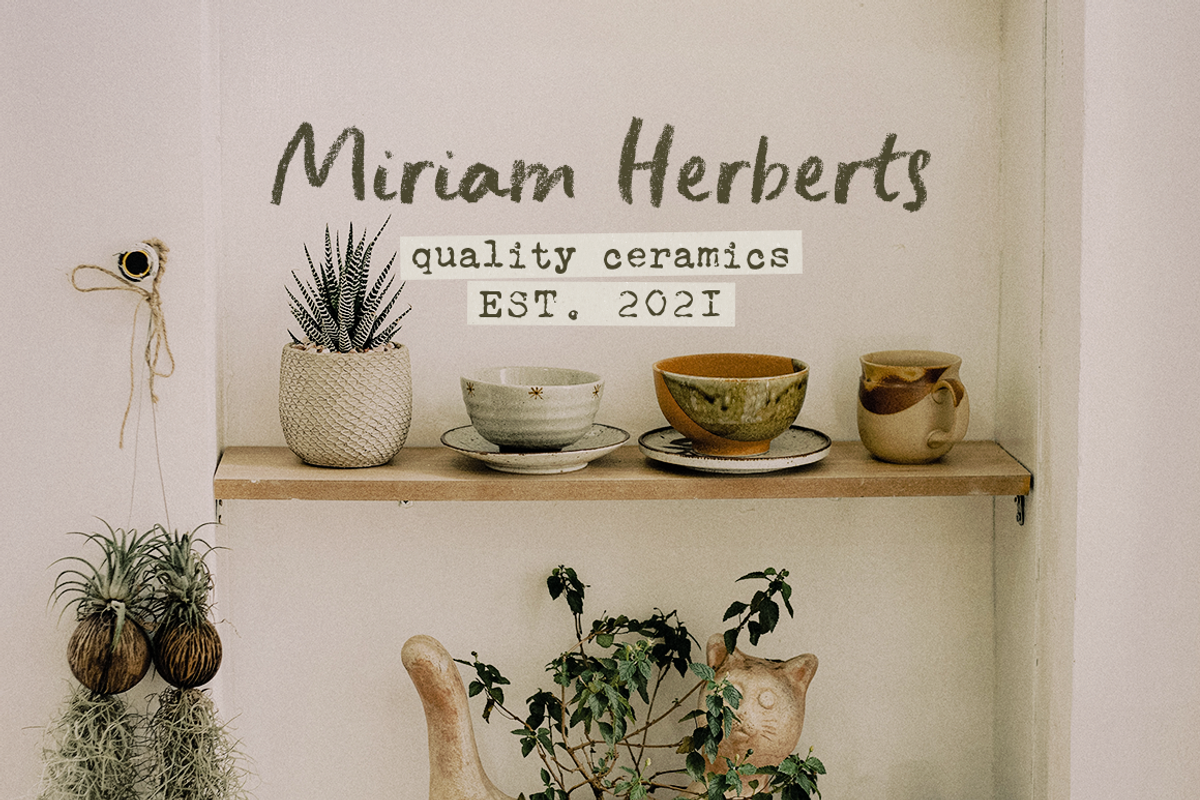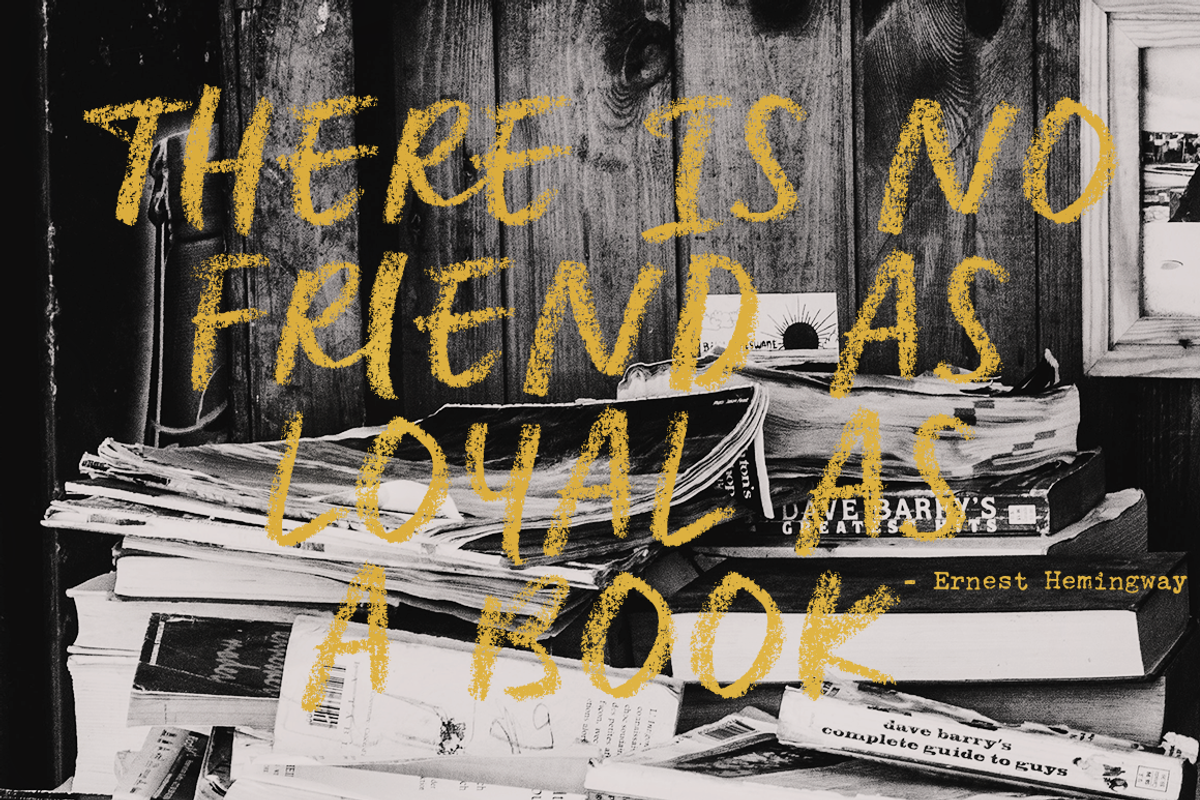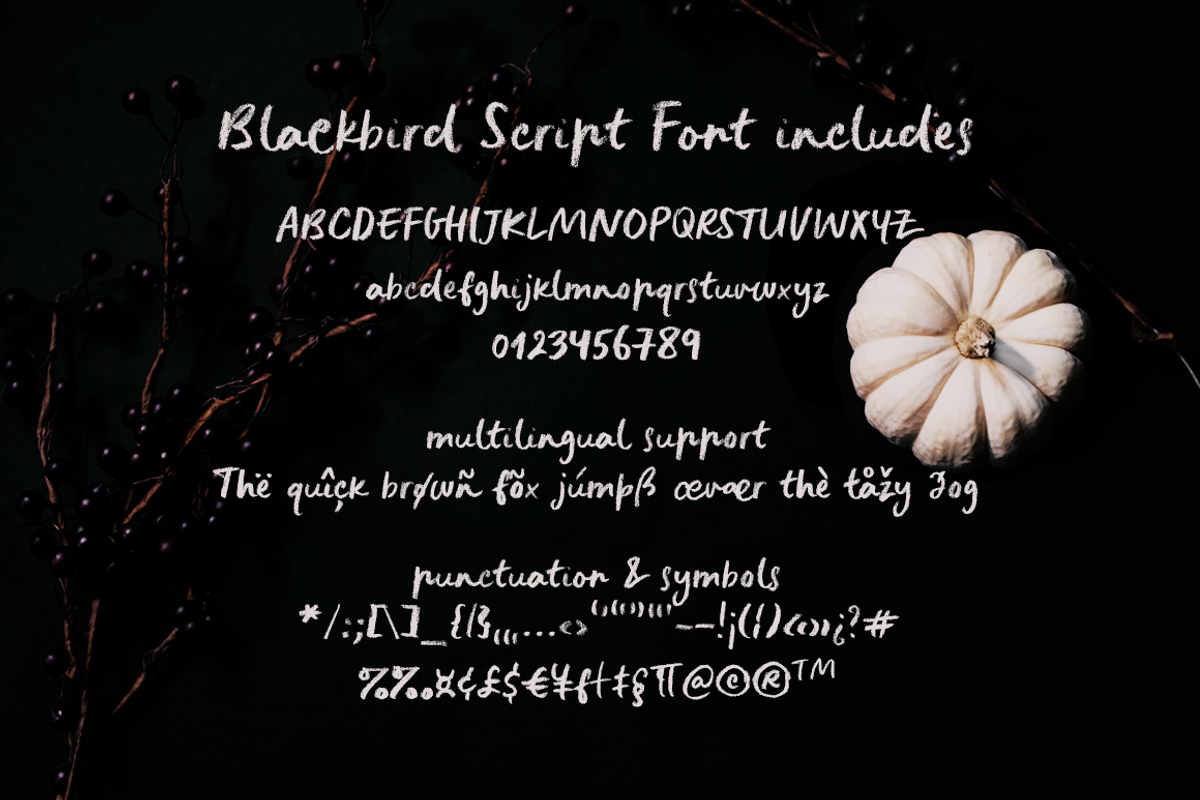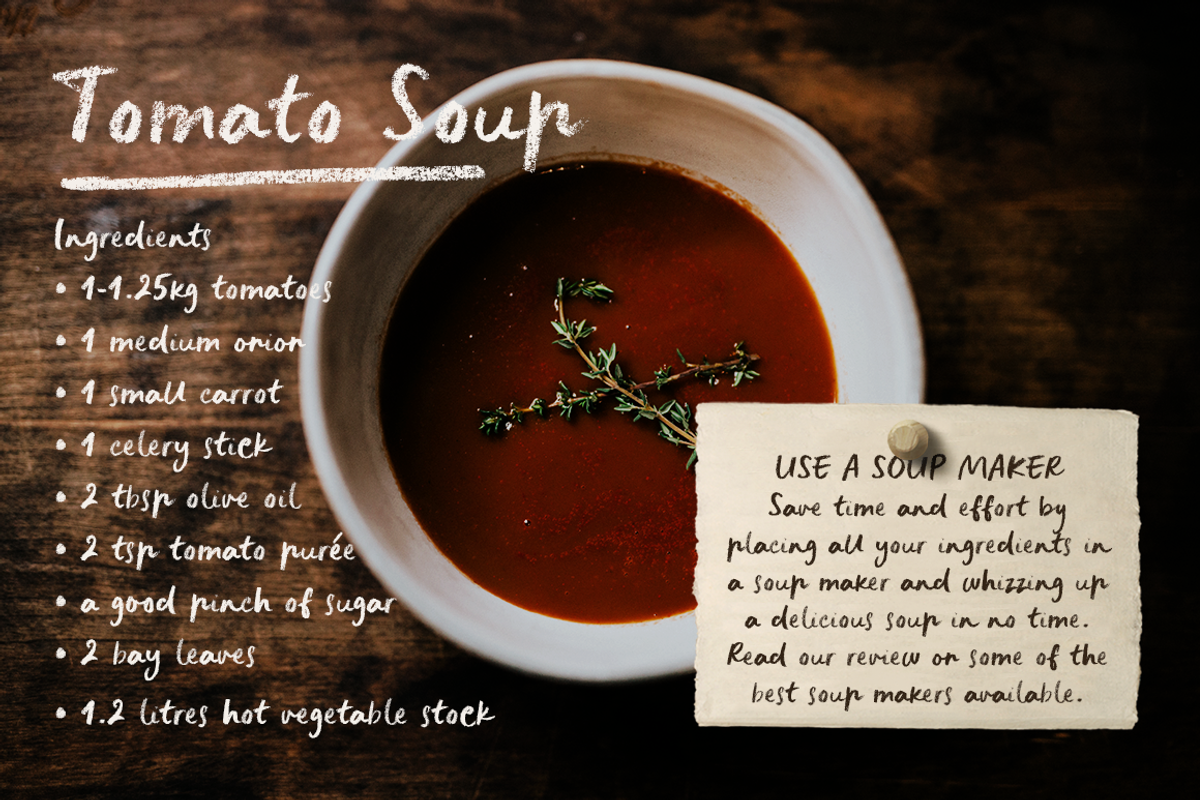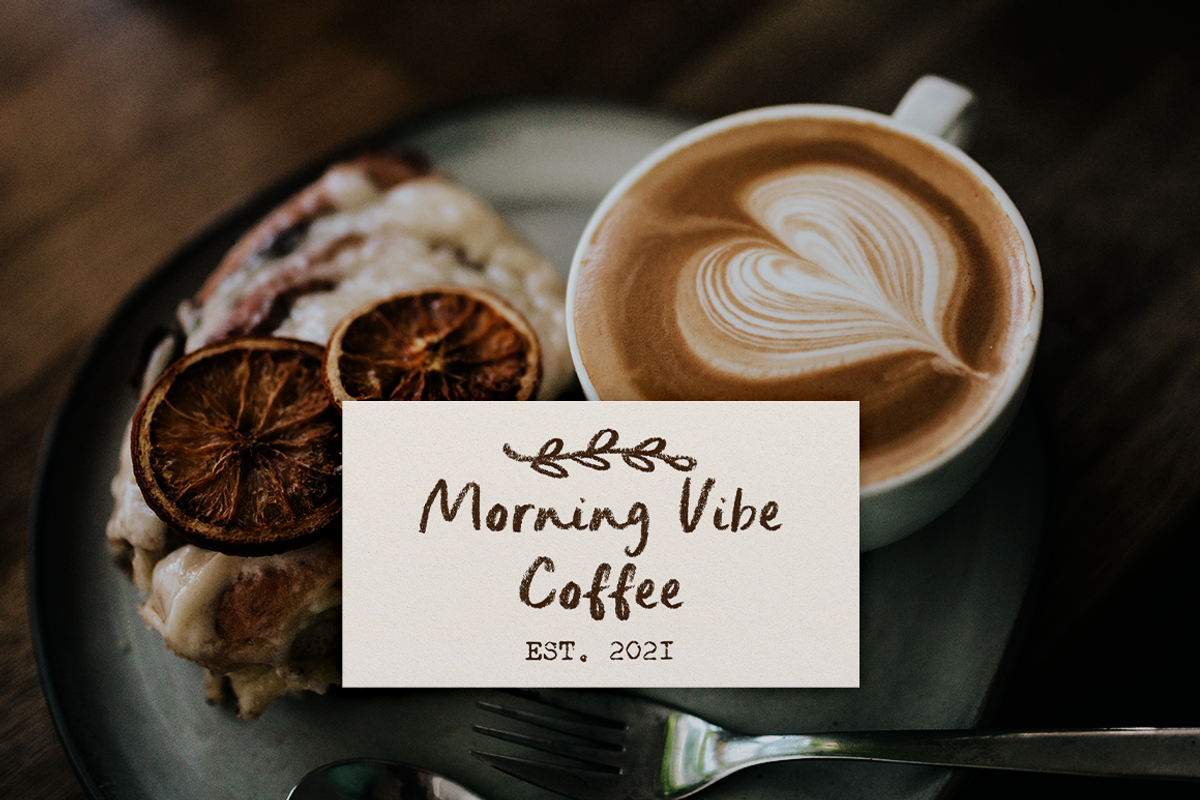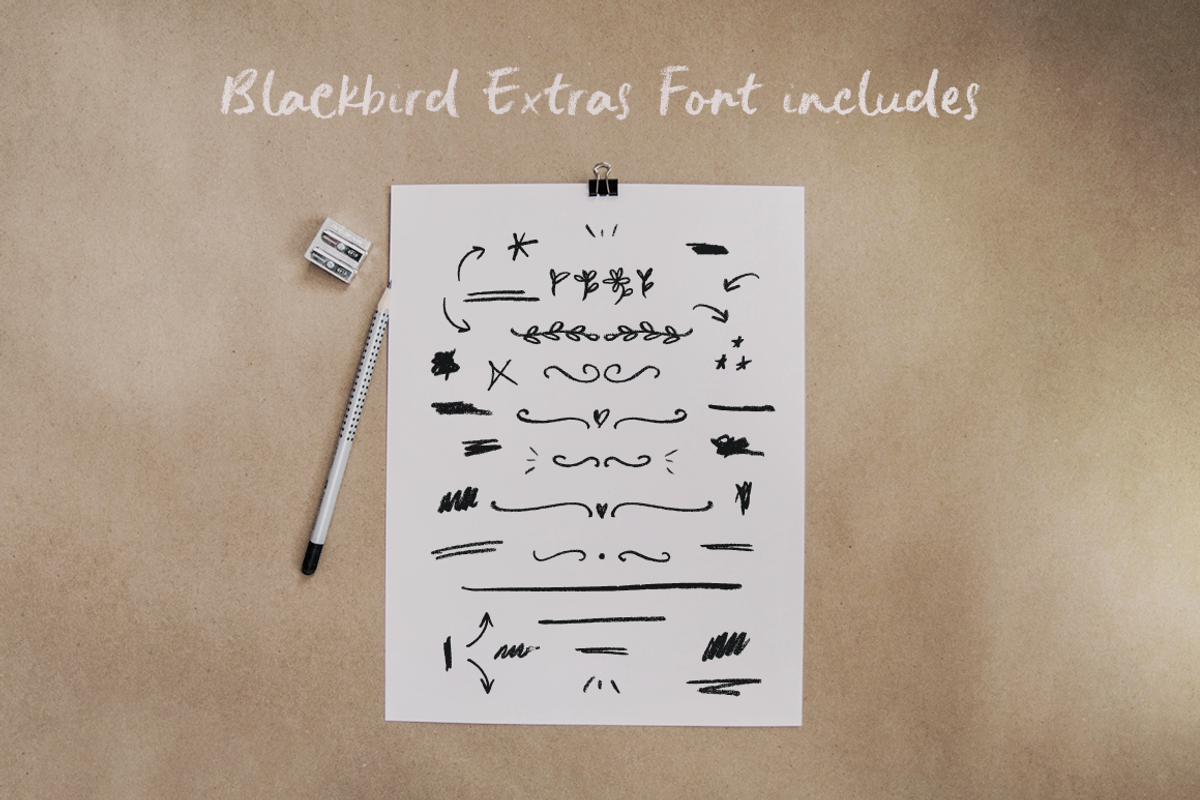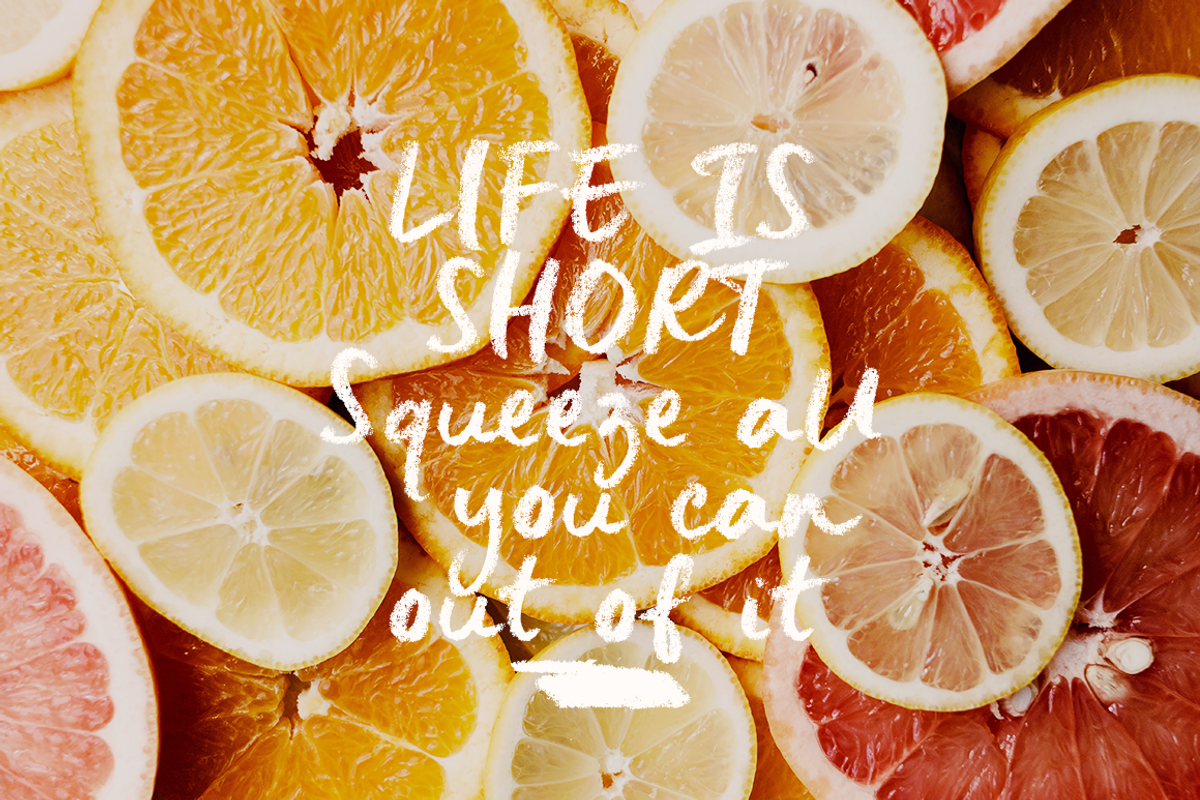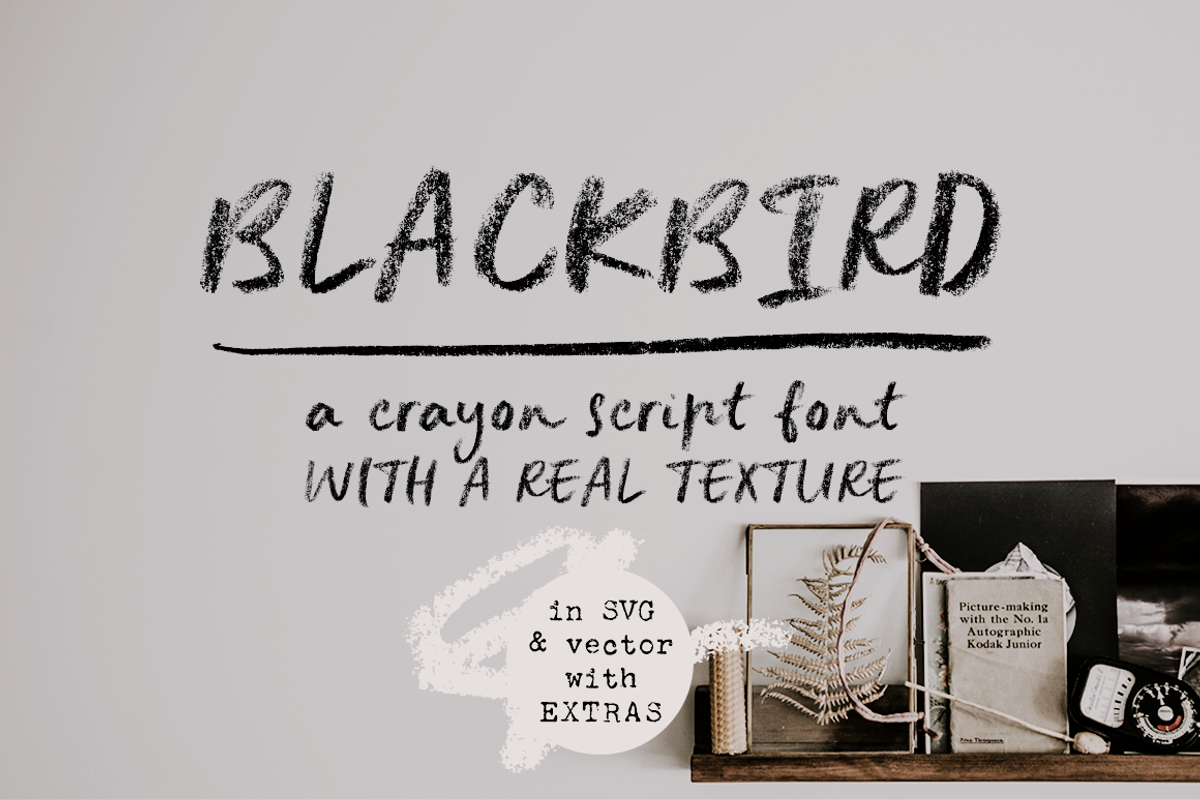
Blackbird crayon script SVG font
Blackbird is a script SVG font made from letters hand-drawn in crayon, for a deliciously textured look. It includes:
- A script font with ligatures and alternates, and
- An extras font, with swashes, underlines, arrows, small illustrations and scratches, etc. in: